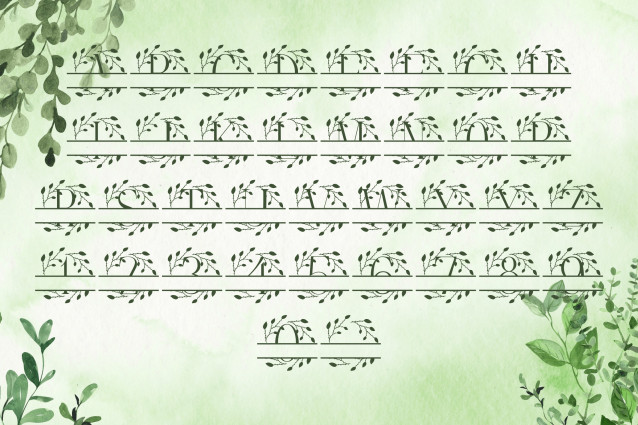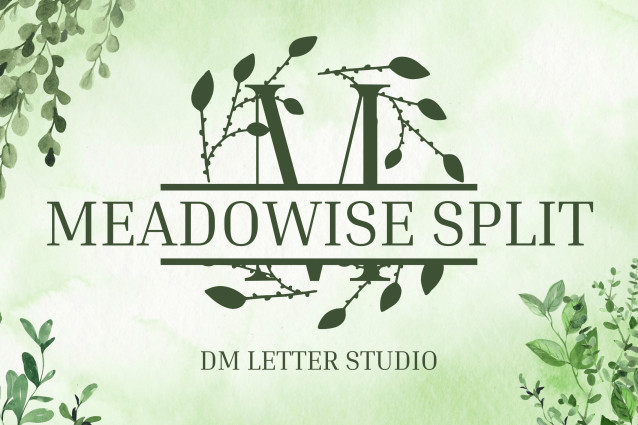
Meadowise Split Font
Meadowise Split Monogram is a delightful script split monogram font, perfect for adding personalized elegance to your designs. With its gentle, hand-drawn curves and a horizontal split for names or words, this font brings a breezy, heartfelt touch to wedding signage, gifts, logos, and more. Its natural flow and boho vibe make it a favorite for crafters and designers alike.